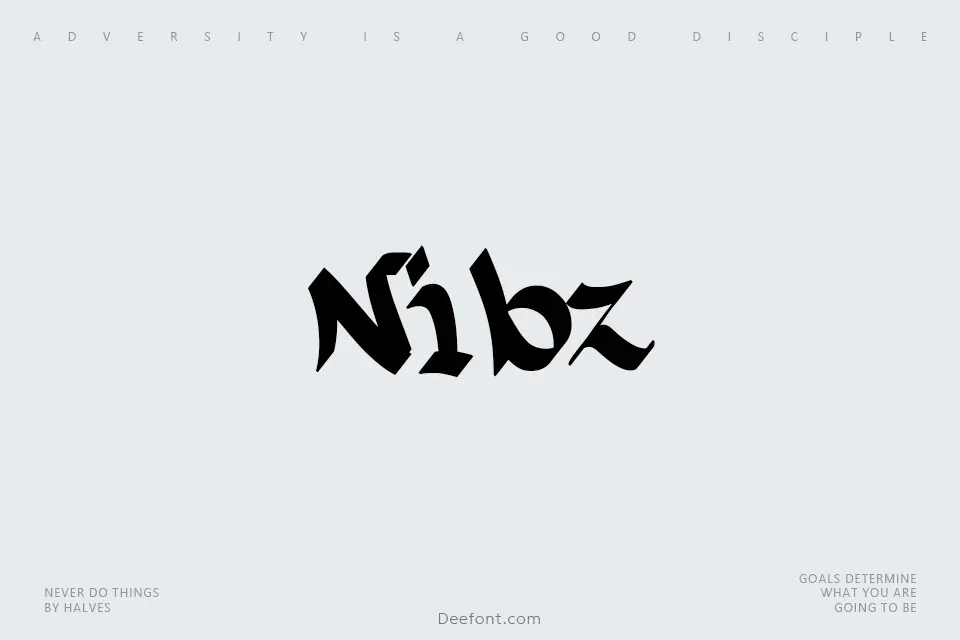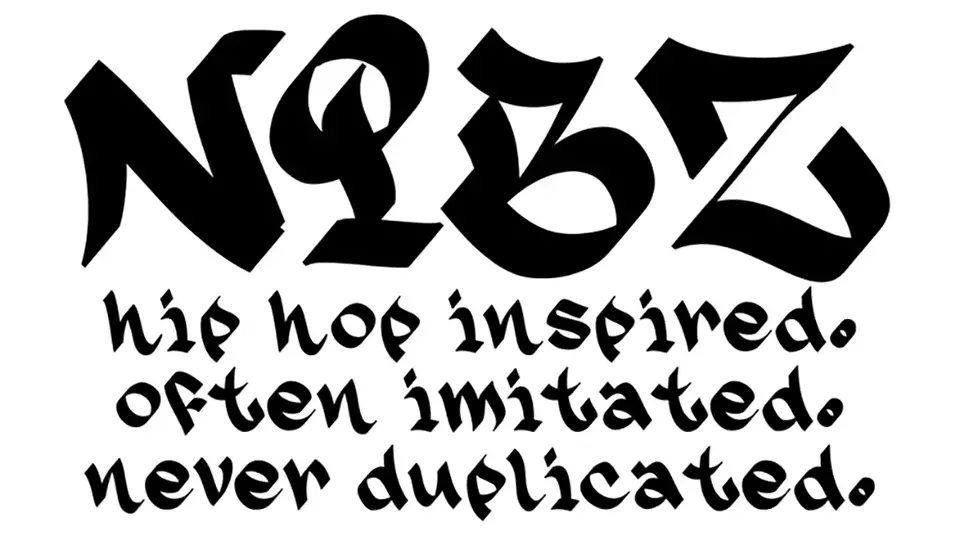
Nibz Font
Nibz is a striking graffiti display font by designer Ben Dunkle, crafted with urban energy and contemporary flair. Features bold, compact letterforms with chisel-cut strokes and hand-sprayed vibes, creating punchy headlines and expressive typography for creative projects. This versatile script font brings dynamic street art aesthetics to album art, streetwear logos, event posters, and digital designs, making it ideal for designers seeking authentic graffiti-inspired character.